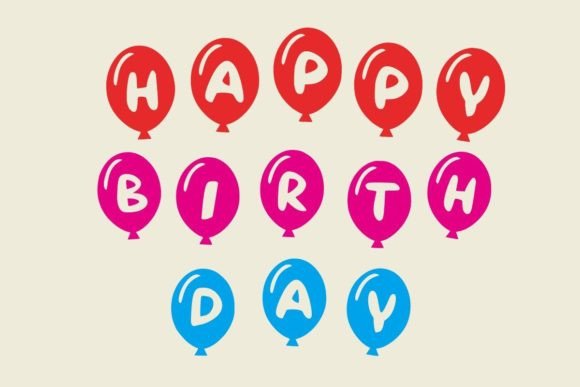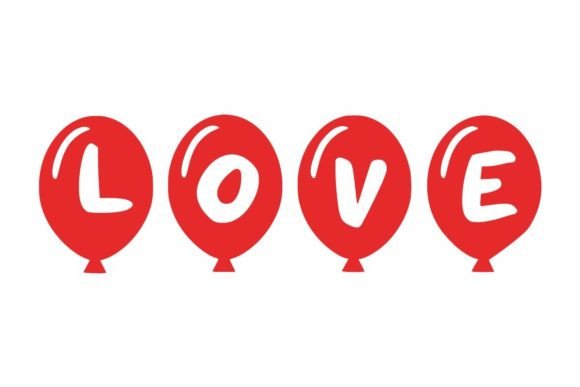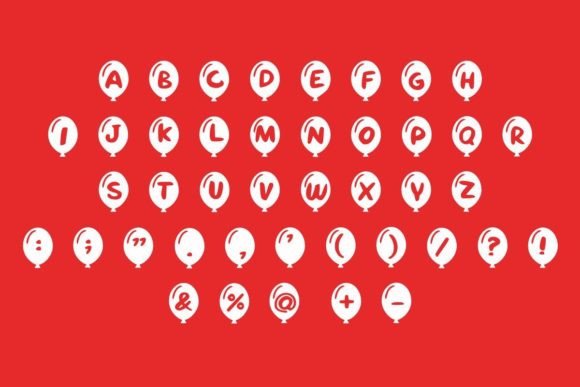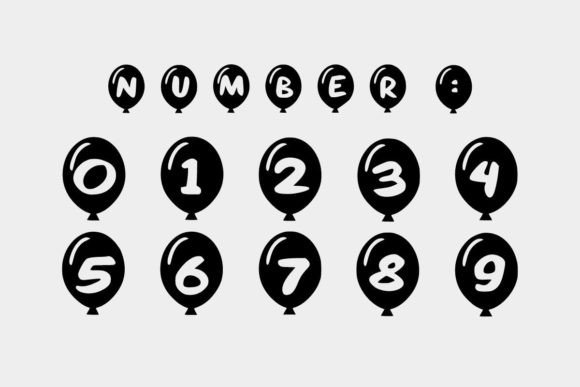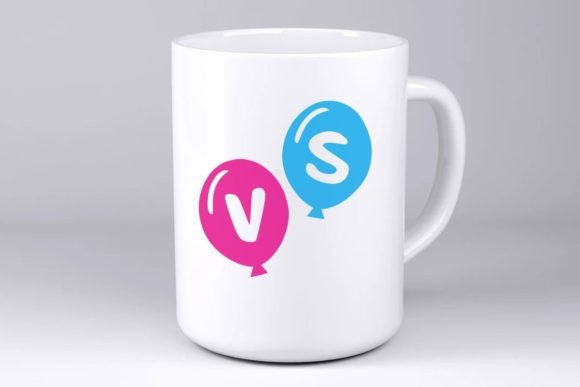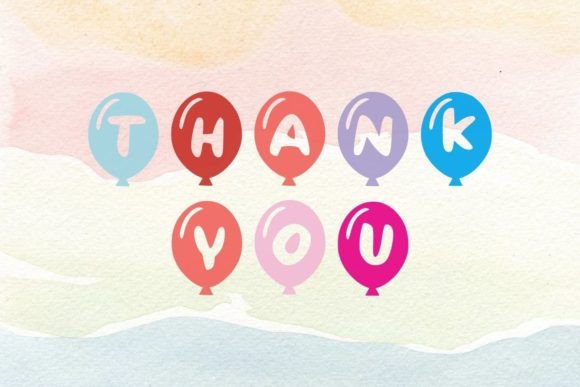
Getting Ready to Pop with Creativity
Have you ever found yourself in a creative rut, staring at a blank page, wondering what your next design project needs to bring it to life? You’re not alone! We’ve all been there. But sometimes, all it takes is the right font to spark that creative magic. That’s where the Balloon Party Font comes in – a vibrant, playful, and approachable display font that’s sure to put a smile on your face and inspire your next masterpiece.
Whether you’re a graphic designer, digital artist, or simply a crafty enthusiast, the Balloon Party Font is a valuable addition to your toolkit. Its bold, colorful letters are perfect for conveying friendliness and approachability, making it ideal for a wide range of projects, from greeting cards to presentations. With the Balloon Party Font, you’ll be ready to pop with creativity and bring your designs to life in a whole new way.
Key Features of Balloon Party Font
- Font Family: Balloon Party
- Unique Characteristics: Features a playful, whimsical design with rounded shapes and vibrant colors, perfect for party invitations, social media graphics, and other celebratory designs
Designer Review: Balloon Party Font
I recently had the chance to work with the “Balloon Party Font” and I must say it’s an interesting choice. ✨ The font’s playful and whimsical vibe could be a great fit for a variety of projects, from party invitations to children’s books.
The font’s bold and colorful aesthetic is certainly eye-catching, and the balloon-inspired design elements add a fun touch. ✨ The font’s flexibility is also a plus, with multiple weights and styles to choose from.
However, there are some limitations to consider. ⚠️ The font’s overall design can be a bit overwhelming, and some of the characters may not render well at smaller sizes. Additionally, the font’s lack of subtlety may make it feel less sophisticated for more formal or professional projects.
Overall, I’d say the “Balloon Party Font” is a great choice for projects that need a bold and playful touch. Just be mindful of the font’s limitations and use it in a way that complements the overall design.
Key Takeaways:
- Playful and whimsical design
- Bold and colorful aesthetic
- Multiple weights and styles available
- May be overwhelming or lacking in subtlety
- Characters may not render well at smaller sizes
Use the Balloon Party Font to add a playful touch to your designs. It’s perfect for creating invitations, party banners, and other celebratory materials.
Combine the font with colorful graphics and patterns to create a festive atmosphere.
The Balloon Party Font is ideal for:
Party invitations and announcements
Wedding decorations and signage
Children’s birthday party materials
Summer and holiday-themed designs